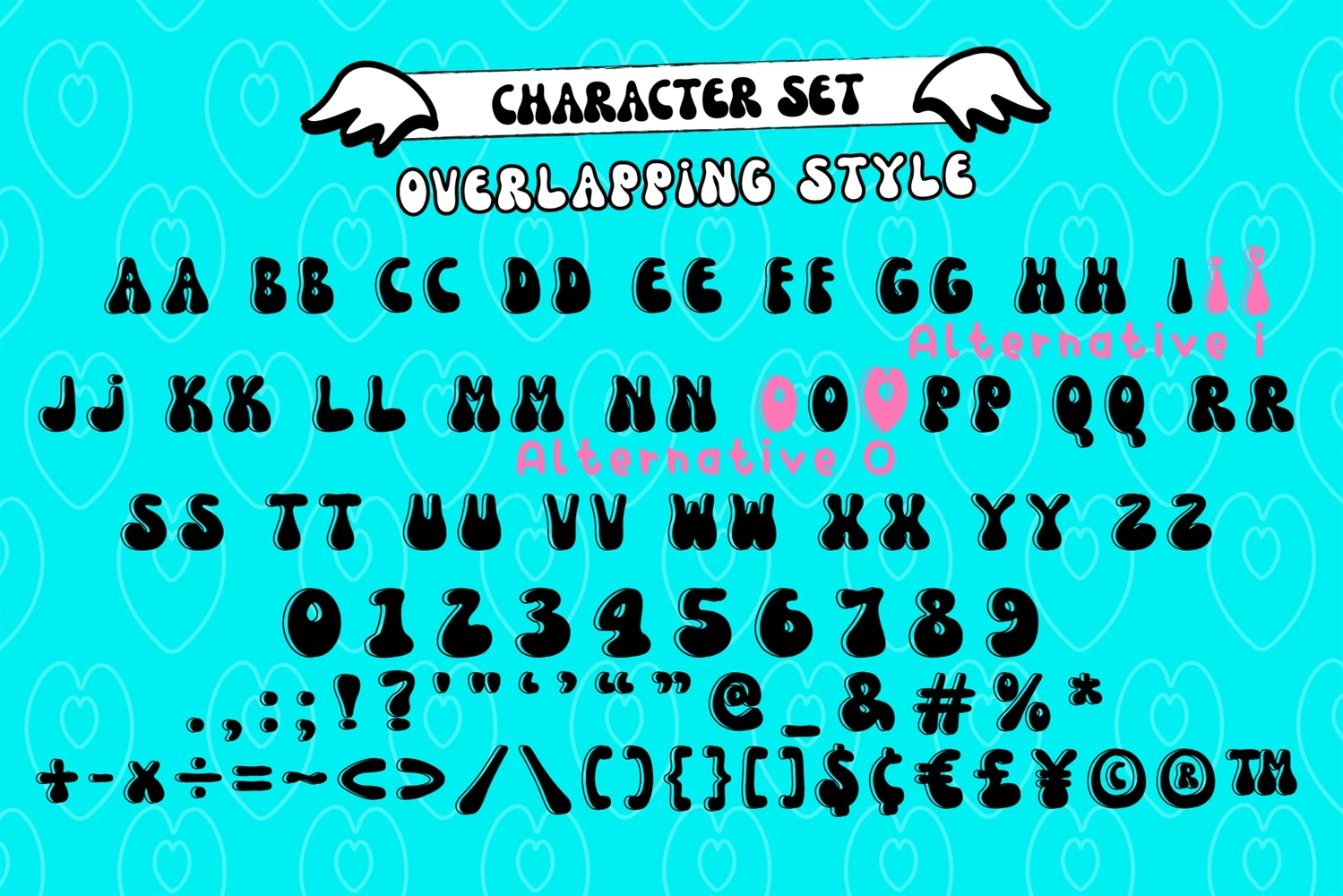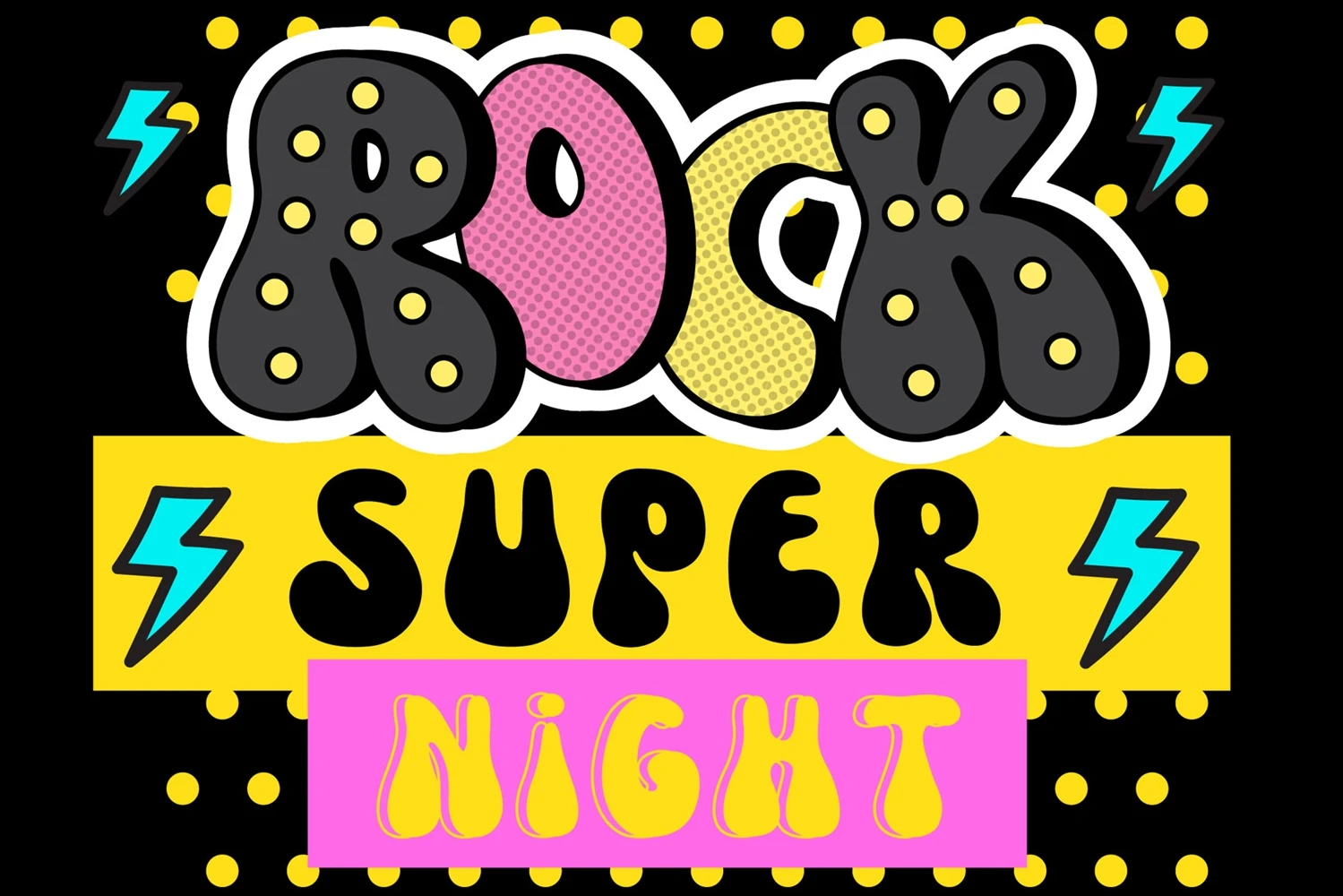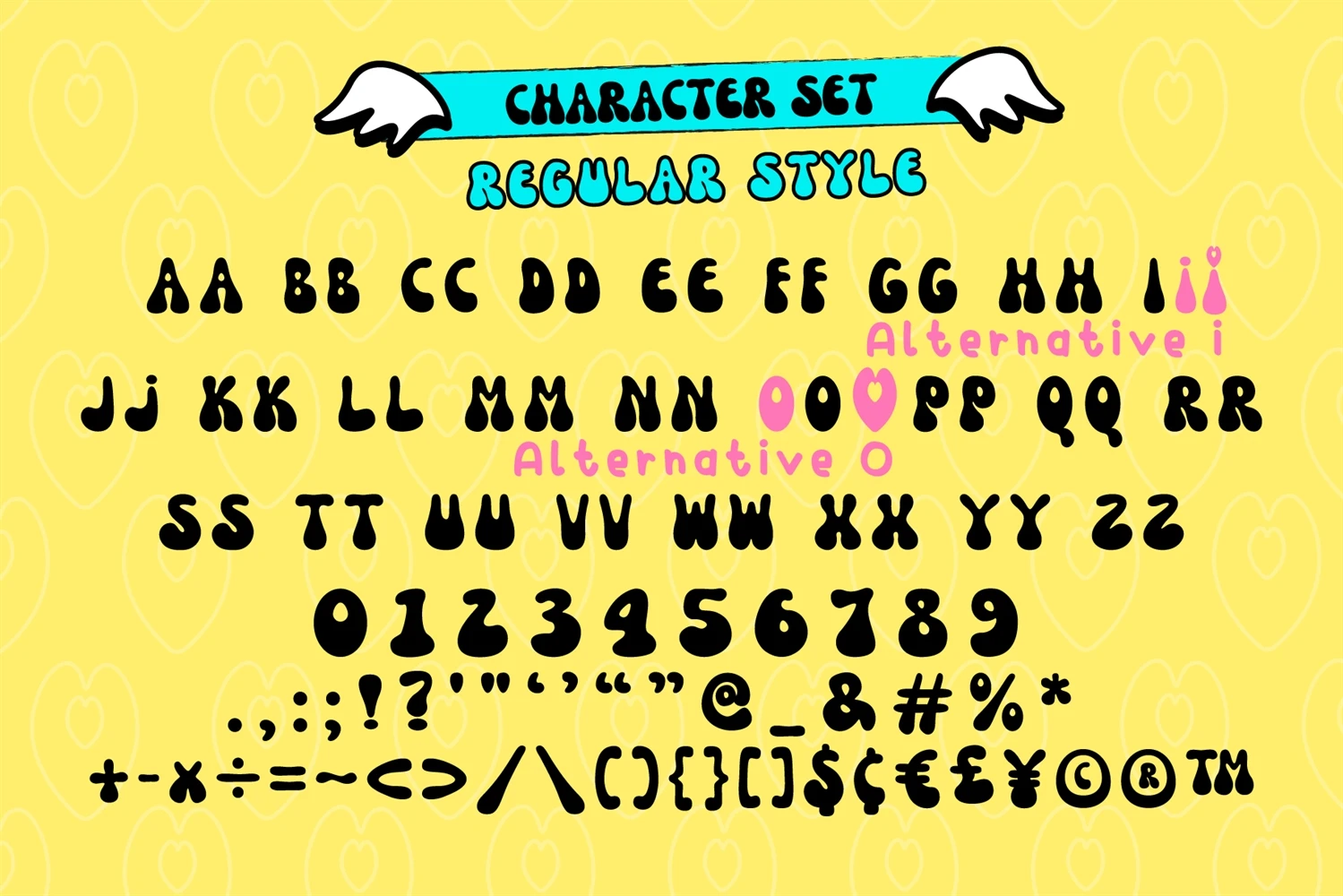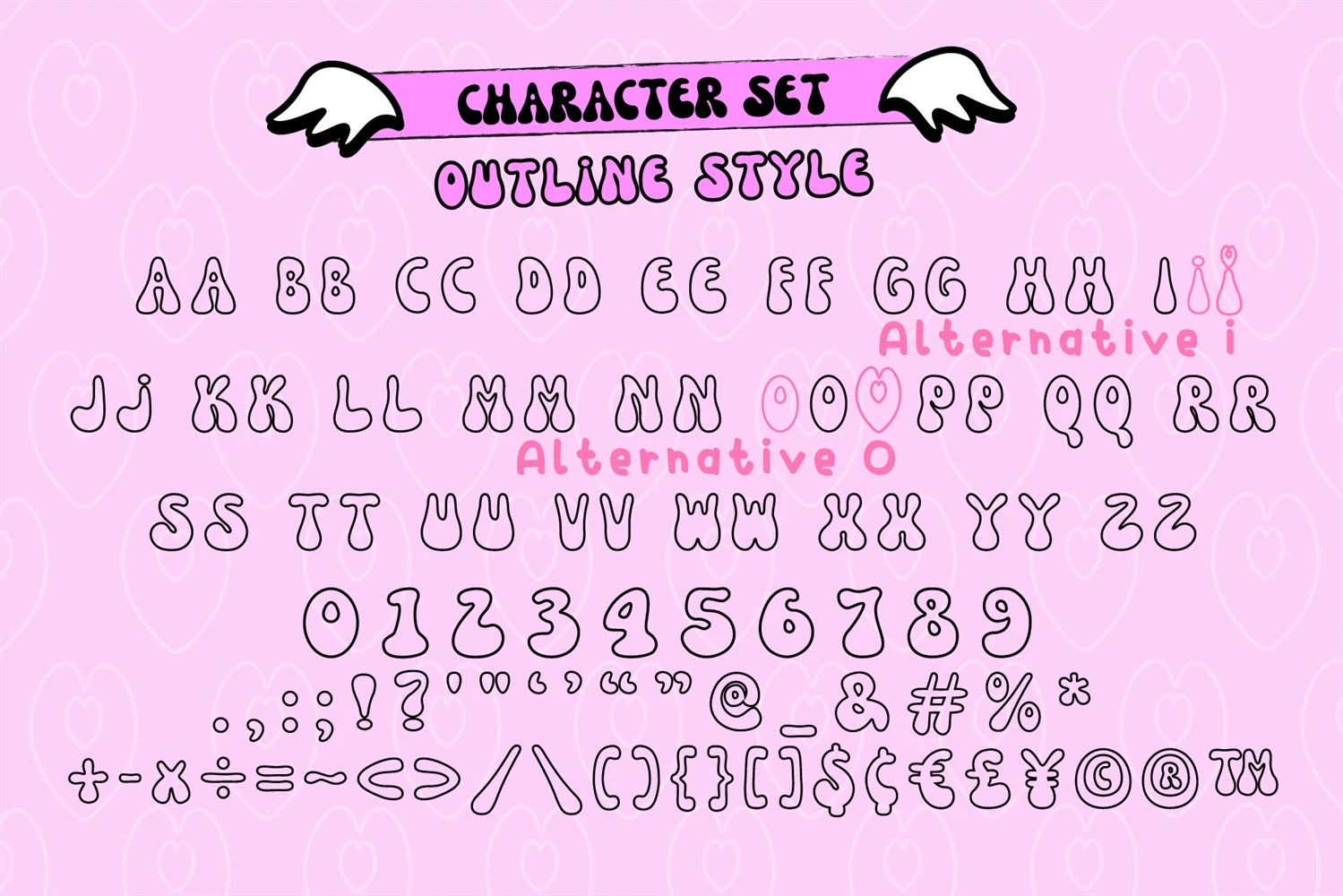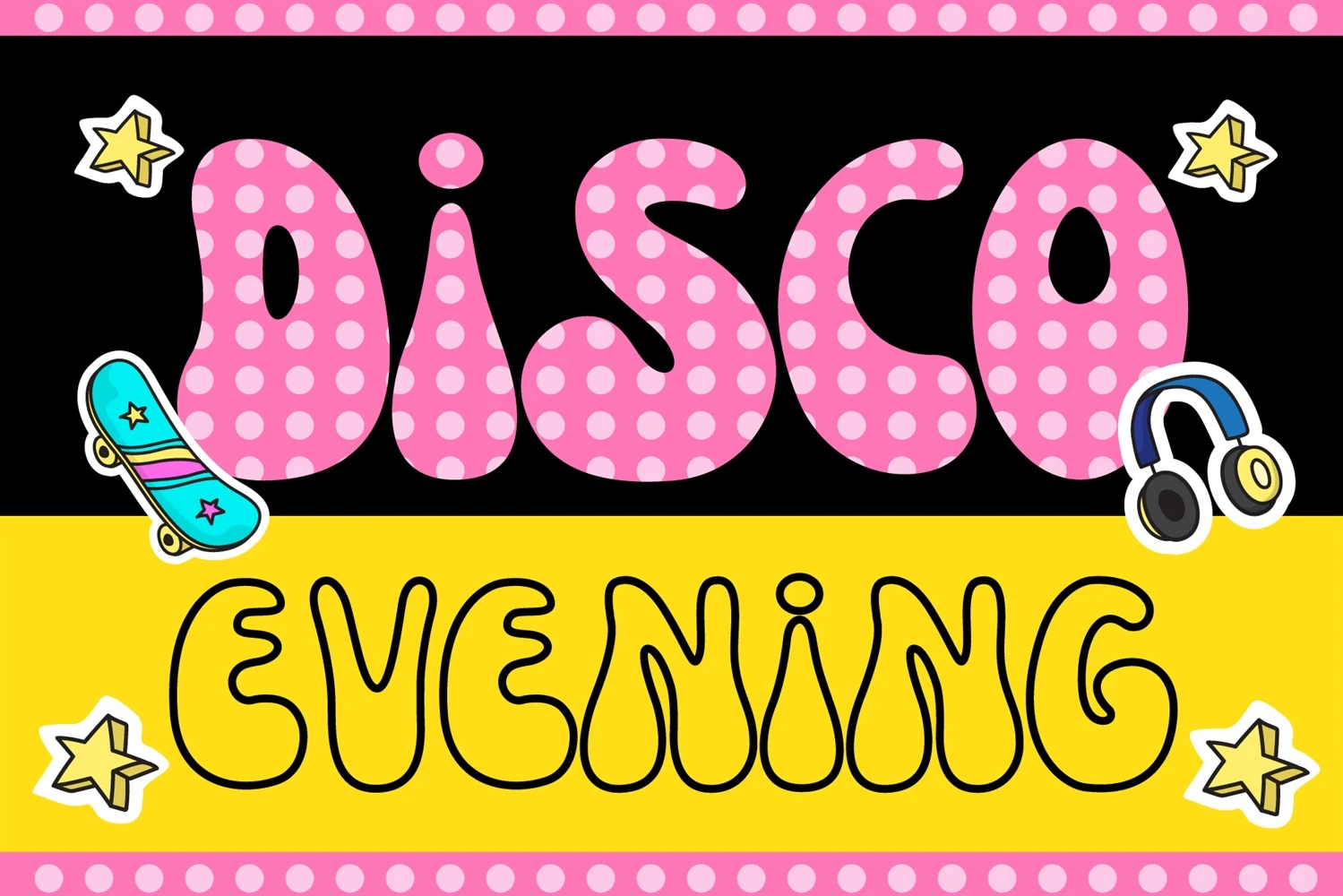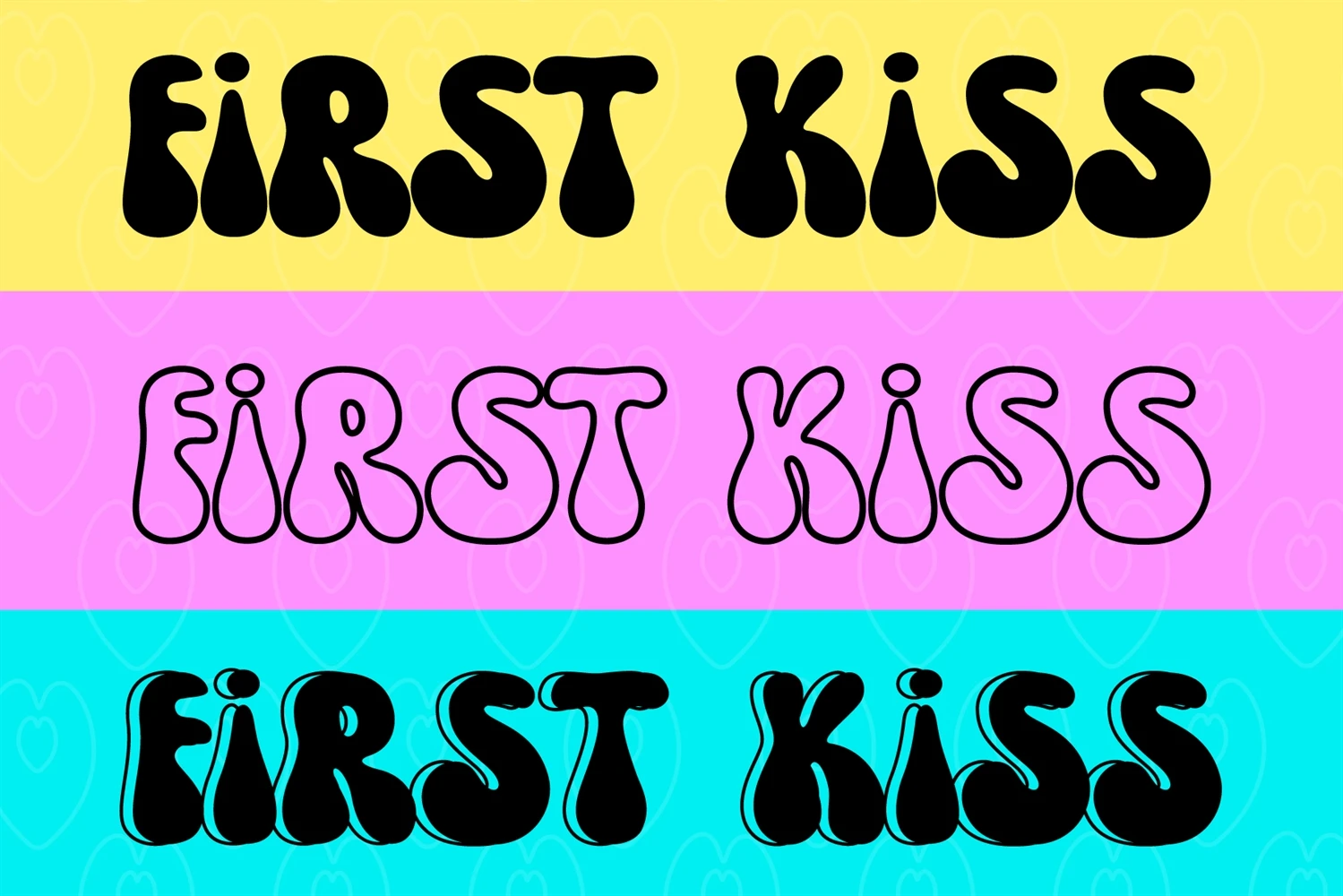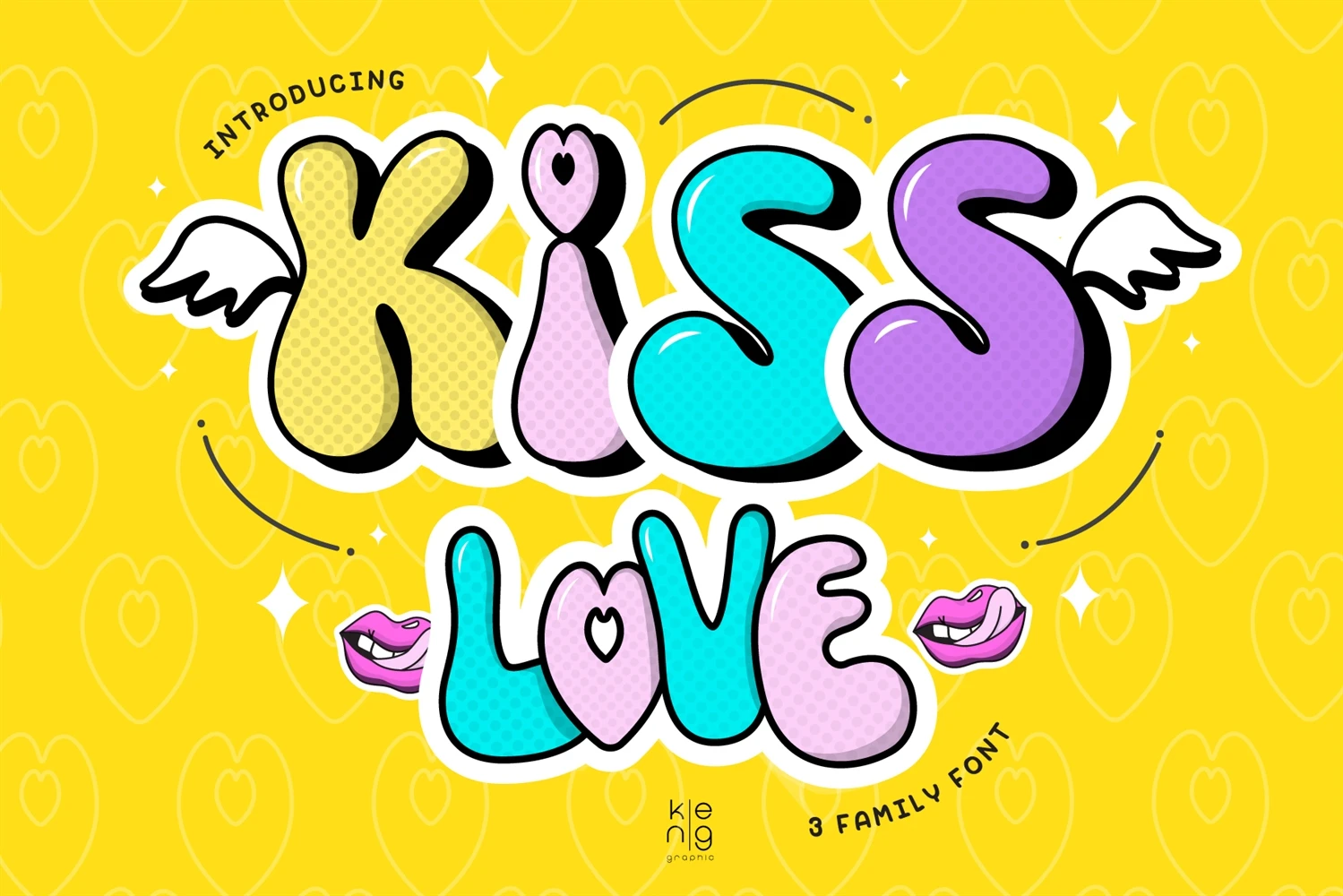
Kiss Love fonts is a retro, fun display font with a great punch. Everything written in this font will be instantly recognizable and will attract attention. It will work great for comic book style, online games, cards, love shirts, posters, movie titles, eye-catching social media posts, or anything that requires youthfulness and courage.
Kiss Love fonts